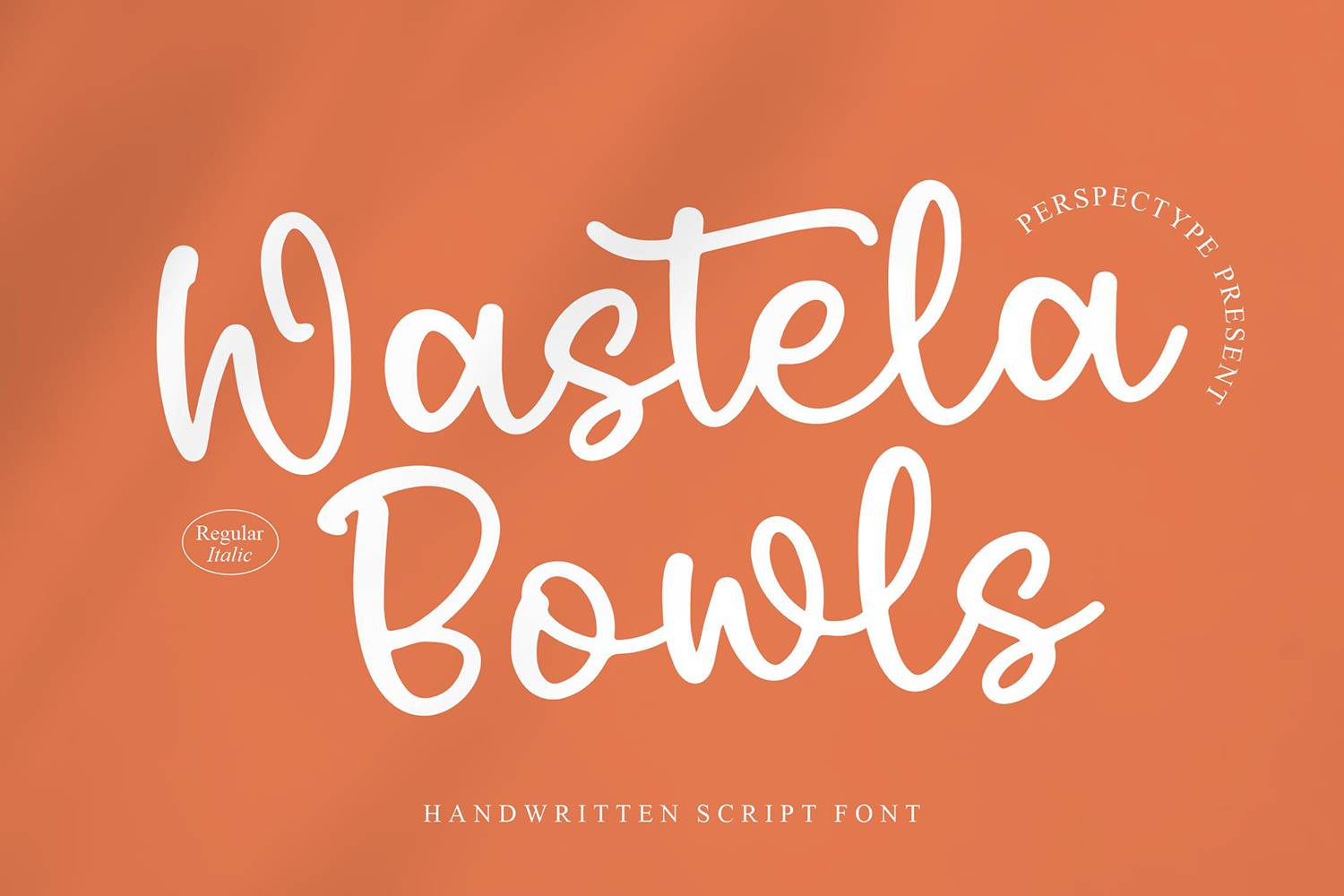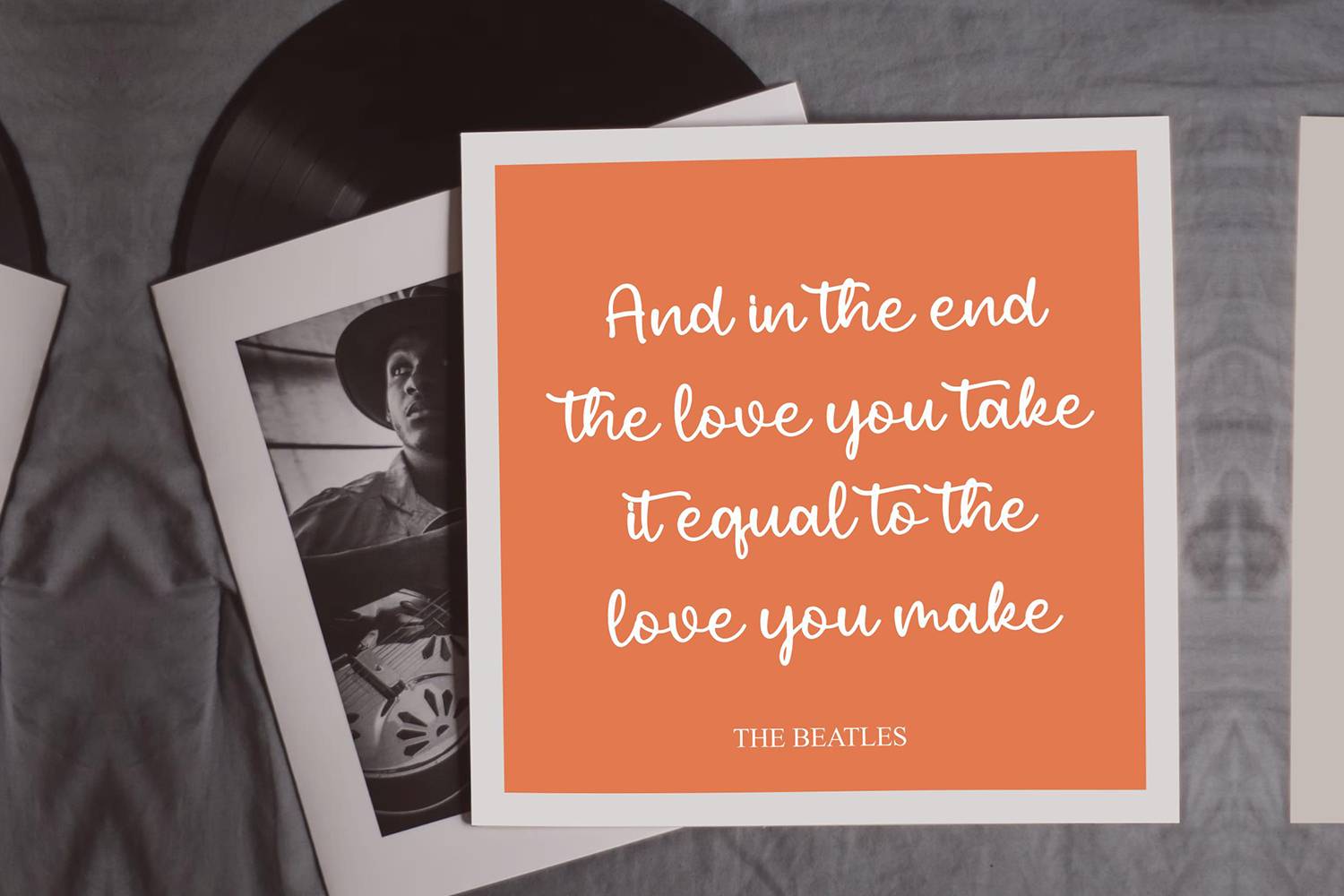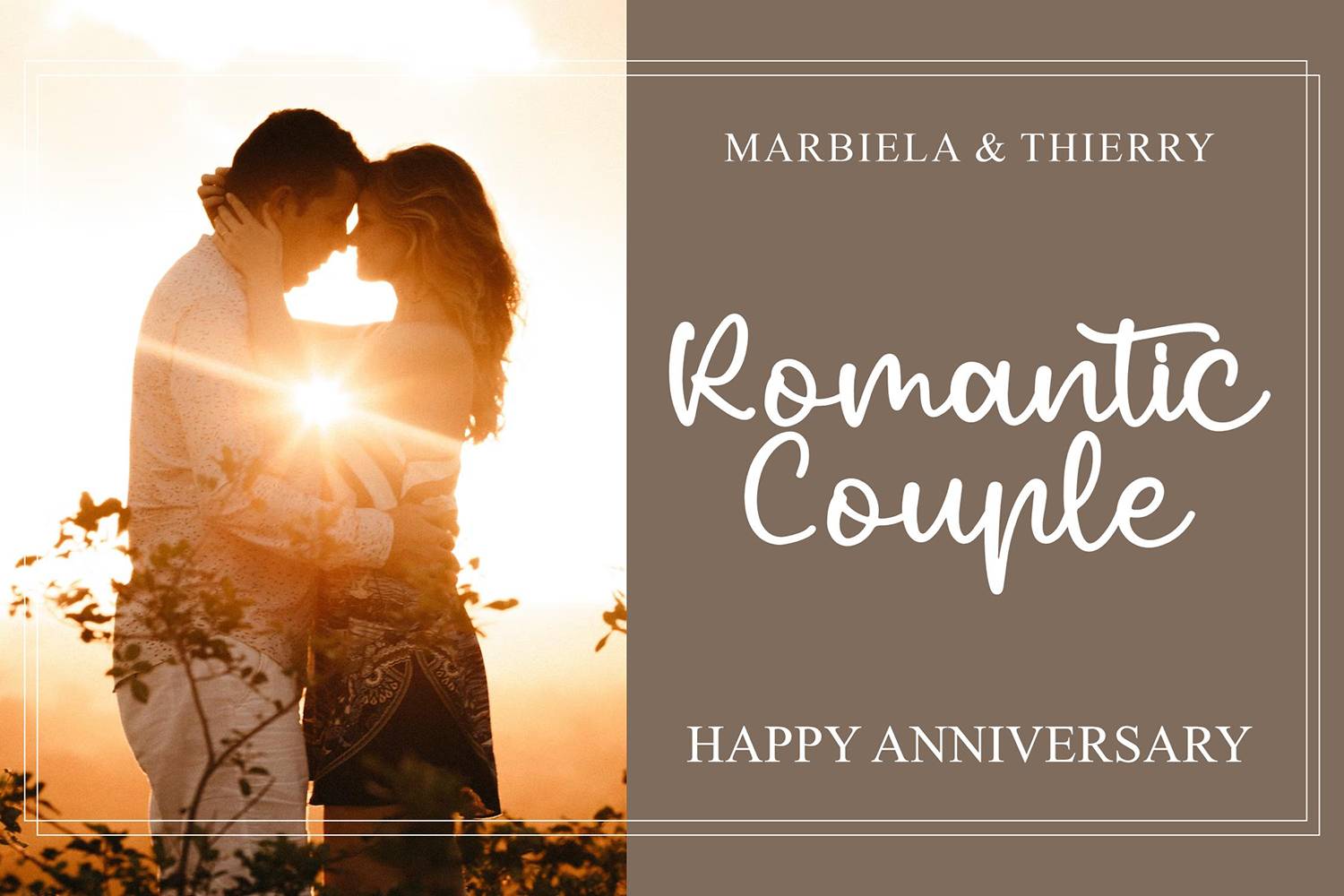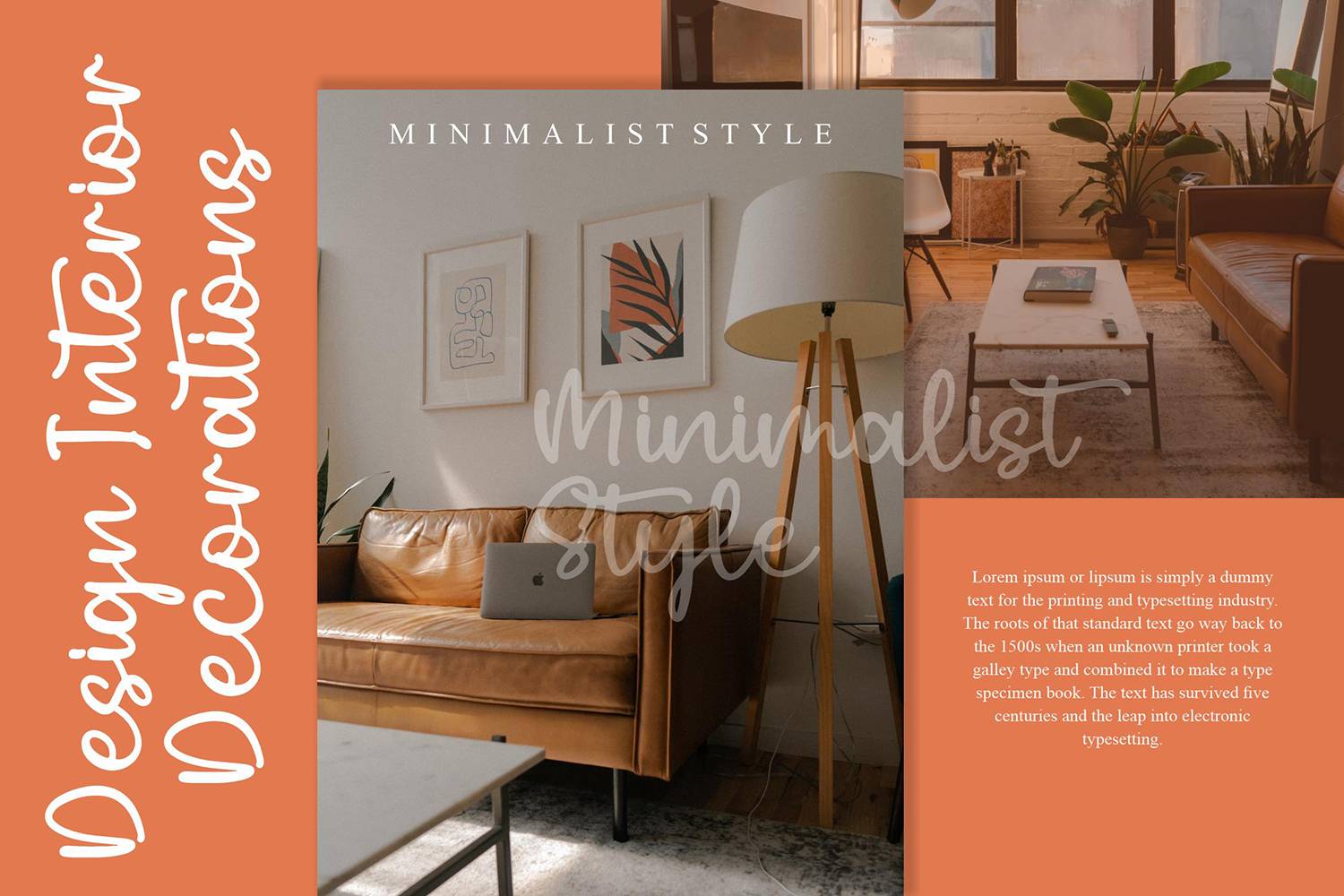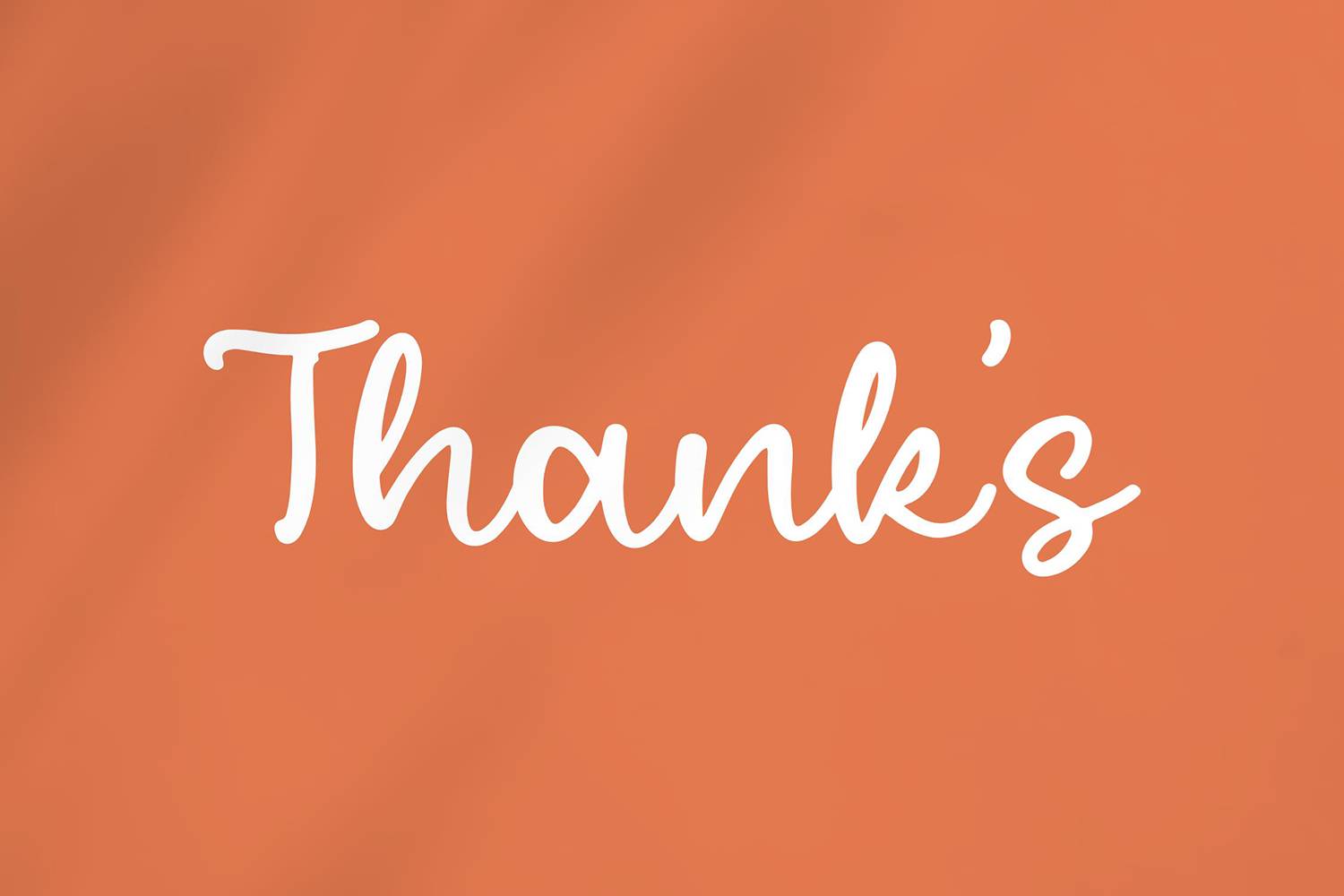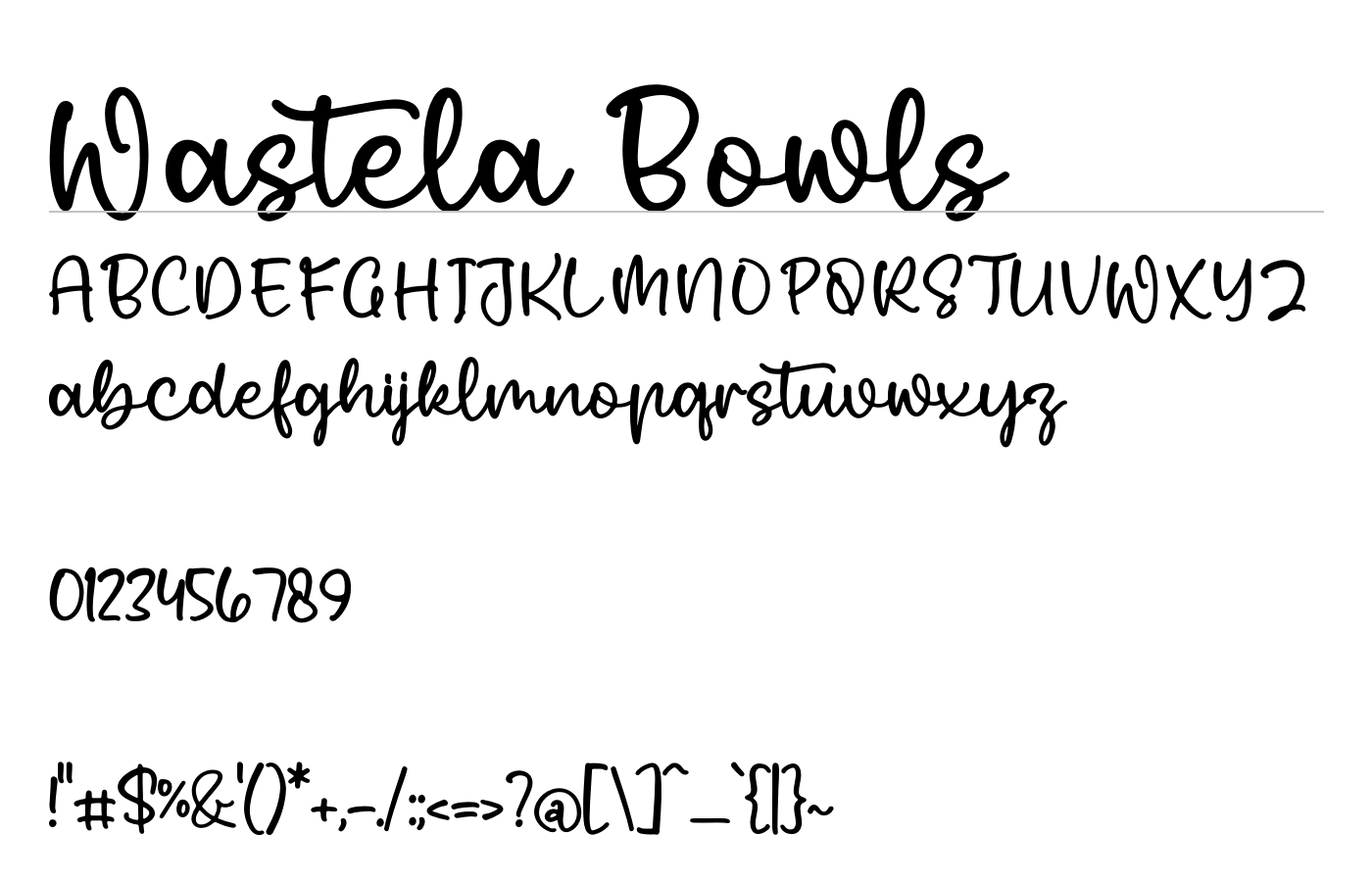
Wastela Bowls is a playful, handwritten script font with a casual and friendly feel. Its smooth, rounded strokes and slightly bouncy letterforms give it a warm, approachable personality perfect for creative projects, branding, and informal headlines. This font works well for packaging, social media, and any design that benefits from a personal, charming touch.
Wastela Bowls Font
About Wastela Bowls Font